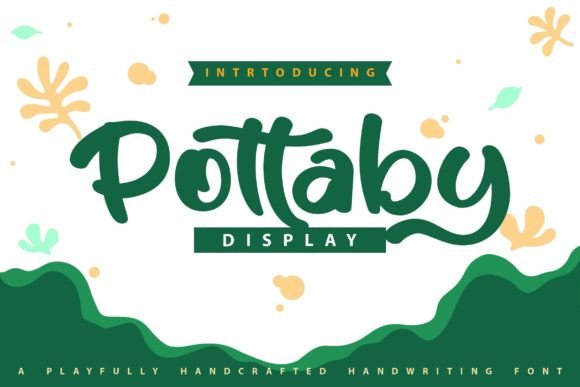
Pottaby: A Sweet Handwriting Font
Looking for a font that adds a personal and charming touch to your designs? Pottaby is a handwriting font that brings a sense of warmth and playfulness to any project. Whether you're creating stationery, branding materials, or packaging, Pottaby can help make your work stand out with its unique style.
What Makes Pottaby Special?
Pottaby is designed to mimic natural handwriting, giving it a friendly and approachable feel. Its soft curves and flowing lines make it perfect for projects that want to convey a sense of creativity and individuality. Unlike more rigid typefaces, Pottaby feels like it was written by hand, adding a human element to your design.
The font is ideal for those who want to add a personal touch without the effort of handwriting everything. Itβs especially useful for designers, marketers, and small business owners looking to create a more authentic and engaging visual identity.
Why Use Pottaby?
There are many reasons to consider using Pottaby in your work. For one, it's incredibly versatile. You can use it for everything from logos and headings to social media posts and email signatures. Its playful nature makes it great for brands targeting a younger or more creative audience.
Another benefit is that Pottaby is PUA encoded. This means you can access all the special characters and ligatures without needing extra software or plugins. It gives you more control over how your text looks, allowing for more expressive and detailed designs.
Use Cases for Pottaby
- Stationery: Use Pottaby on business cards, invitations, or note cards to give them a personalized and elegant look.
- Branding: Add a unique touch to your brandβs visual identity by using Pottaby in logos, banners, or packaging.
- Packaging: Make product boxes or labels more eye-catching with a handwritten feel that stands out on shelves.
- Marketing Materials: Use Pottaby in posters, flyers, or social media graphics to catch attention and convey a friendly message.
Who Can Benefit From Pottaby?
Pottaby is perfect for a wide range of users. Beginners can use it to add a creative flair to their projects without needing advanced design skills. Professionals such as graphic designers, marketers, and entrepreneurs can leverage its charm to enhance their work and connect with their audience on a more personal level.
Educators and hobbyists may find it useful for creating worksheets, lesson plans, or DIY projects that require a more artistic touch. Its versatility makes it a valuable tool for anyone looking to express themselves through typography.
For best results, pair Pottaby with simpler fonts for body text. This helps maintain readability while still allowing the script font to shine. Experiment with different sizes and colors to see how it fits your design goals.
Things to Consider Before Using Pottaby
While Pottaby is a great choice for many projects, it's important to think about how it will be used. For example, if you're designing something that needs to be read at a distance, such as a sign or banner, you may want to choose a larger size or a more legible font for key elements.
Also, consider the context in which you'll use it. Pottaby works well for casual or creative projects, but may not be the best fit for formal or professional documents. Always test the font in different scenarios to ensure it meets your needs.
Final Thoughts on Pottaby
Pottaby is more than just a fontβit's a way to add personality and character to your work. Whether you're a designer, a small business owner, or someone who loves creative expression, this font offers a fresh and appealing alternative to more traditional typefaces.
By using Pottaby, you can bring a sense of warmth and fun to your projects, making them more engaging and memorable. With its ease of use and expressive style, it's a great addition to any designer's toolkit.